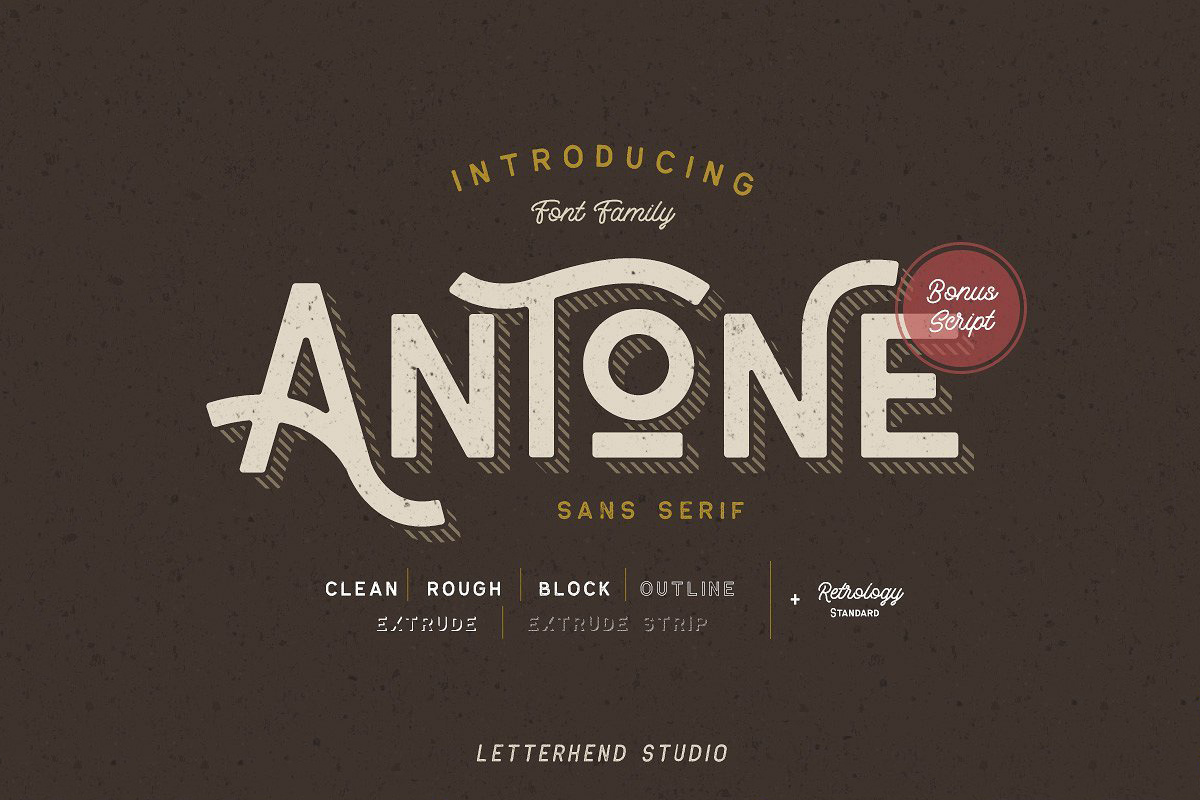
Antone Family - Vintage Font Family
Introducing Antone, a font family which has 7 font version. The character of the clean version of this font is bold, strong, yet elegant. While the rough and block version is suitable for vintage & retro feel.